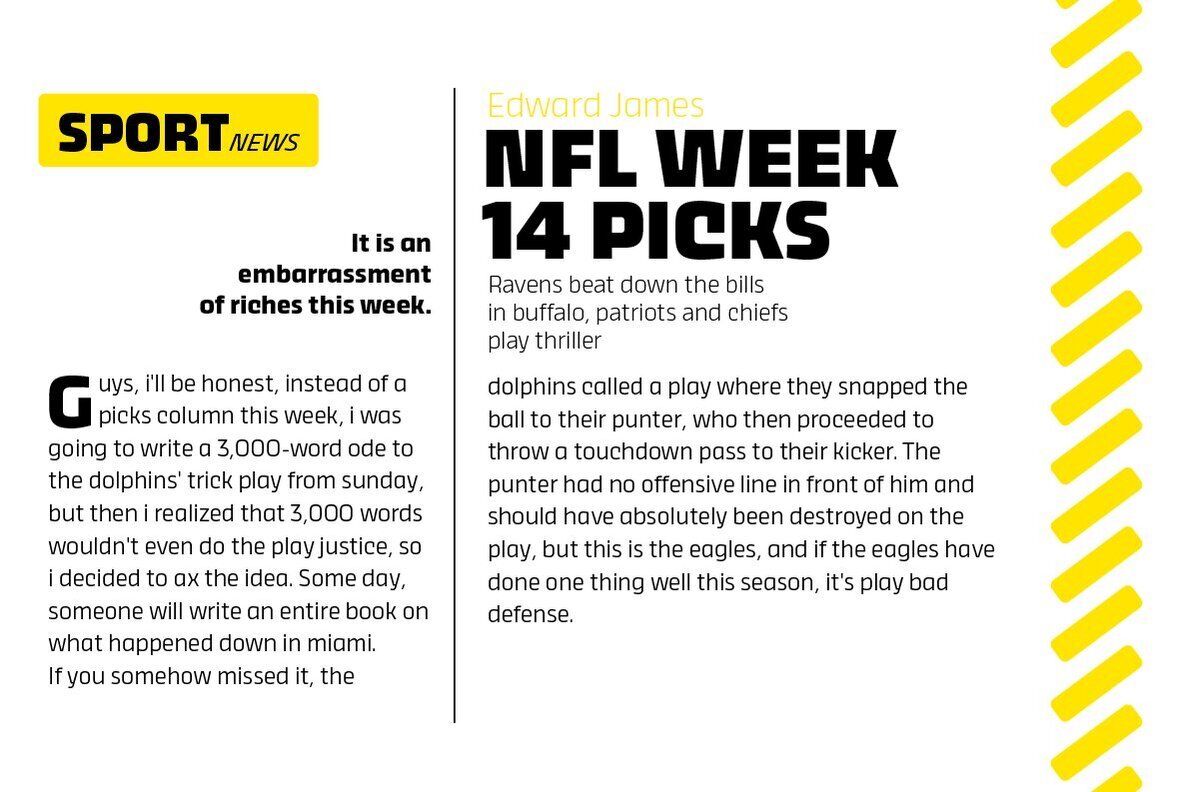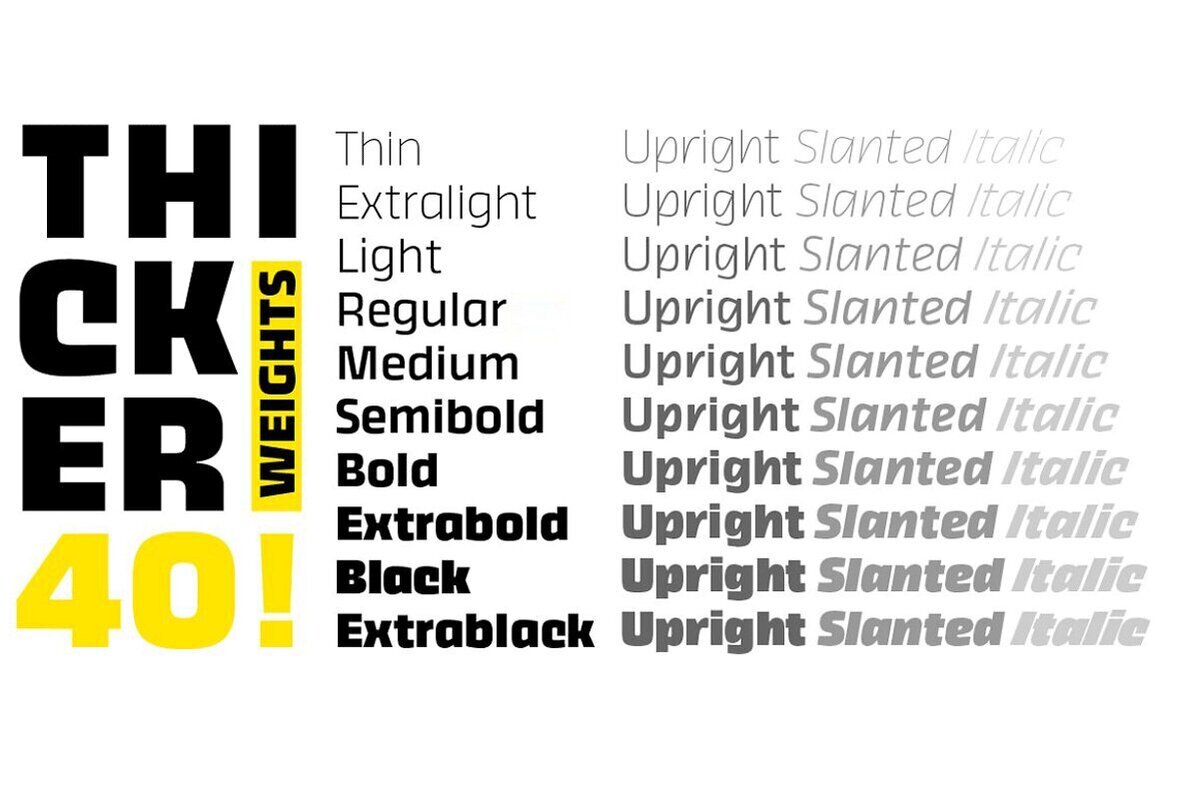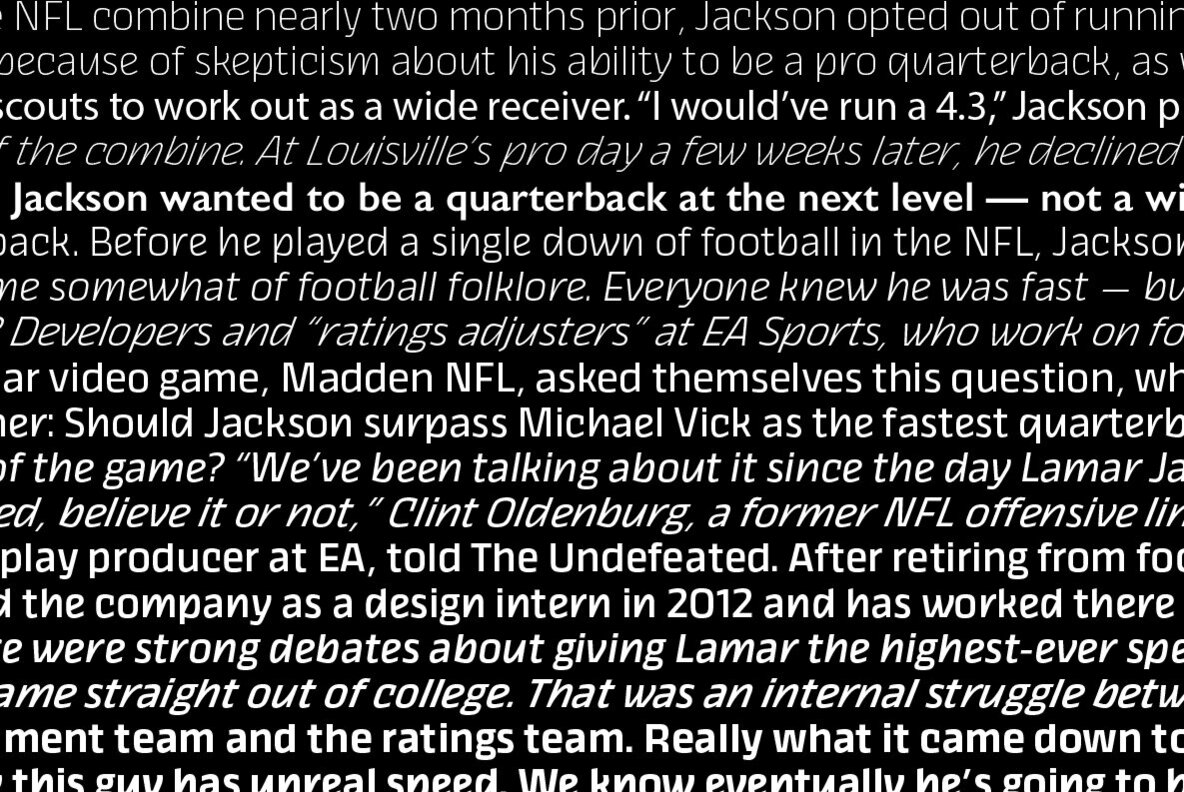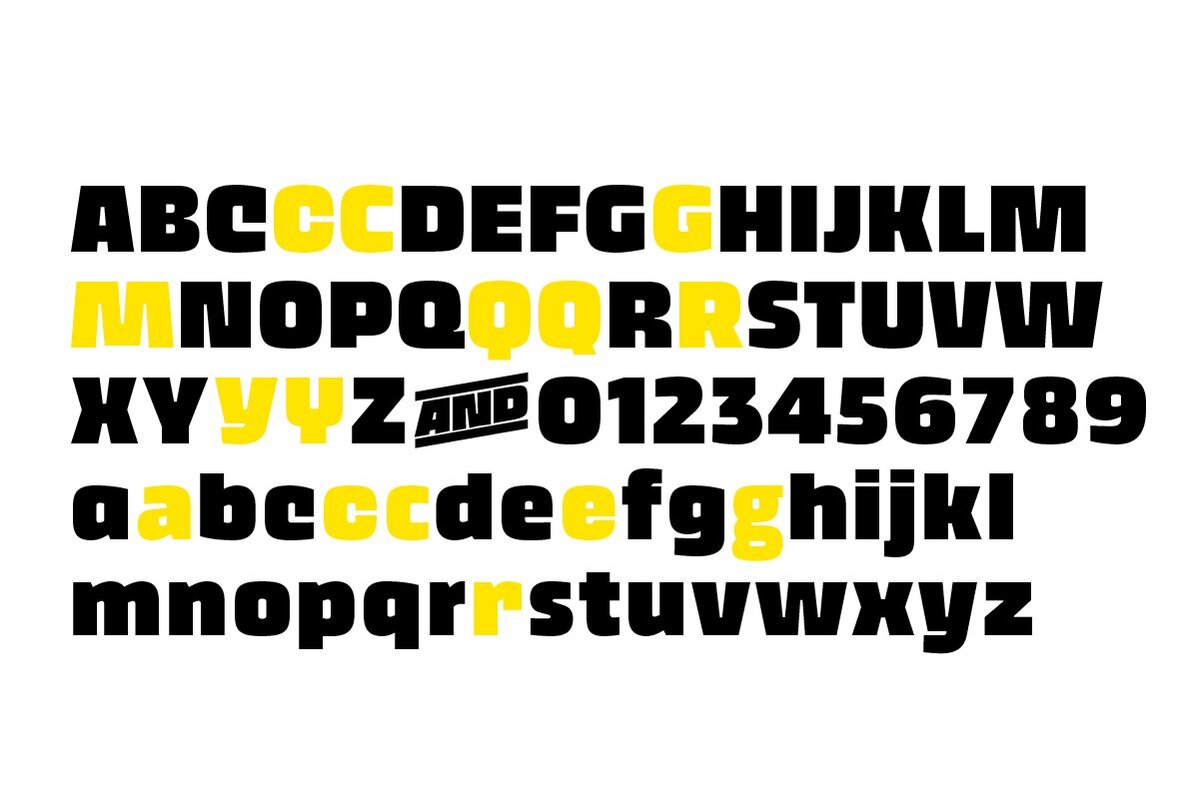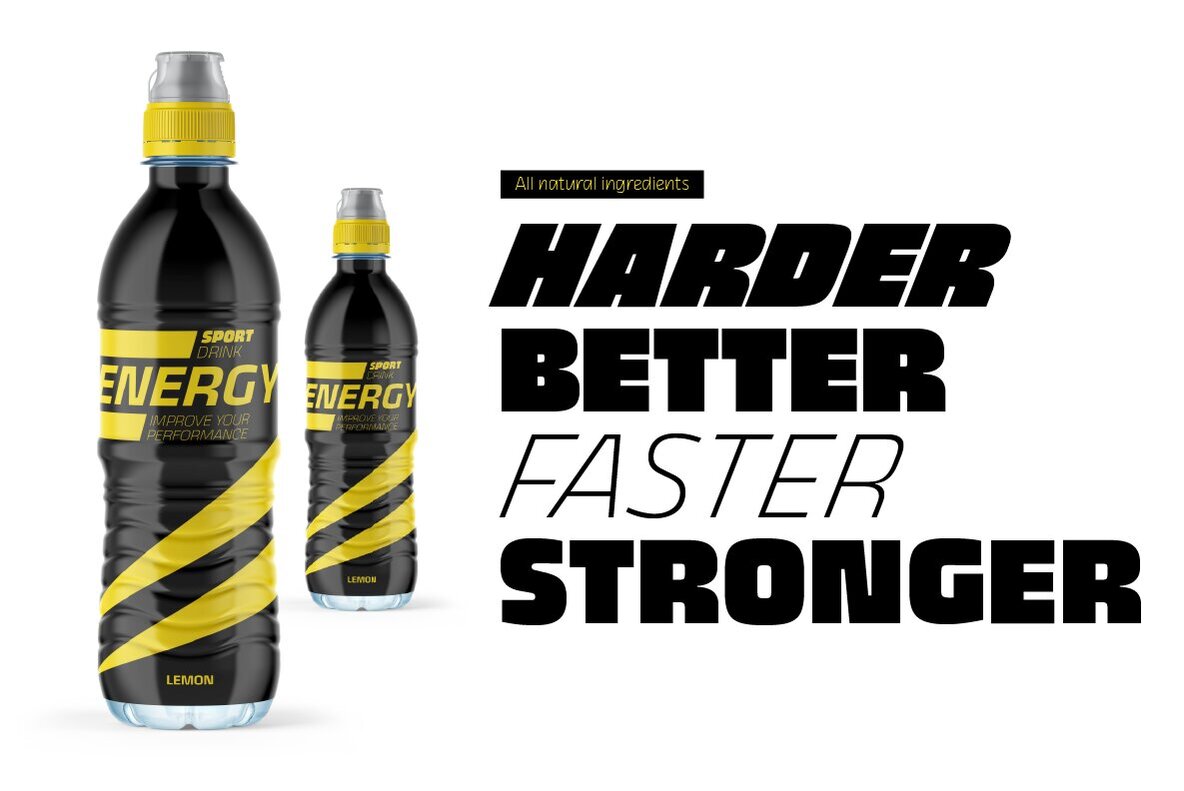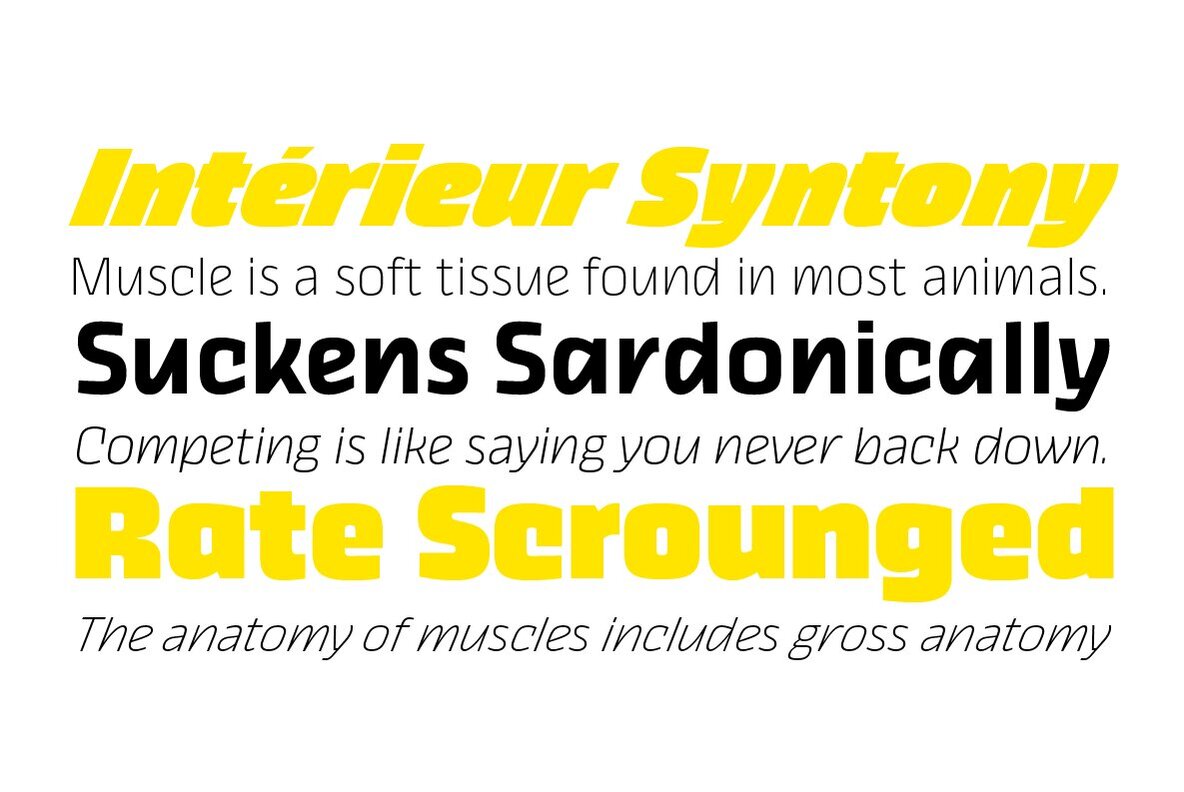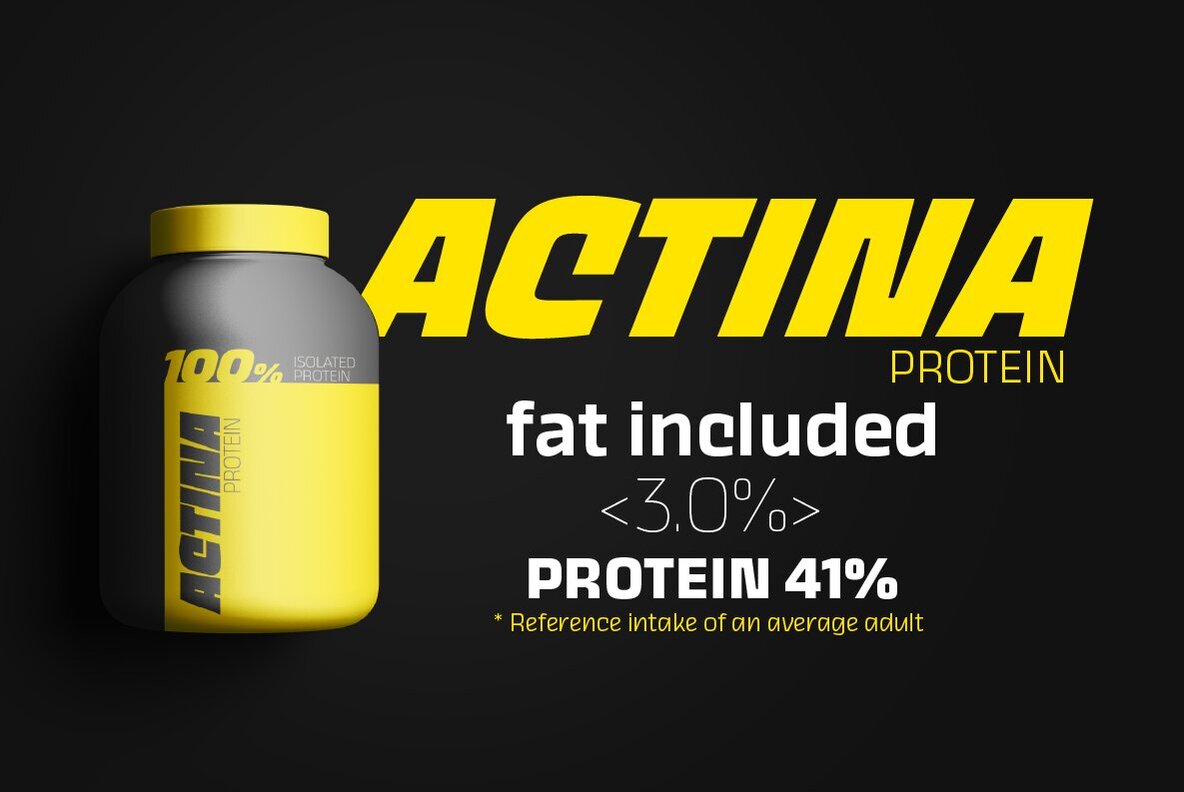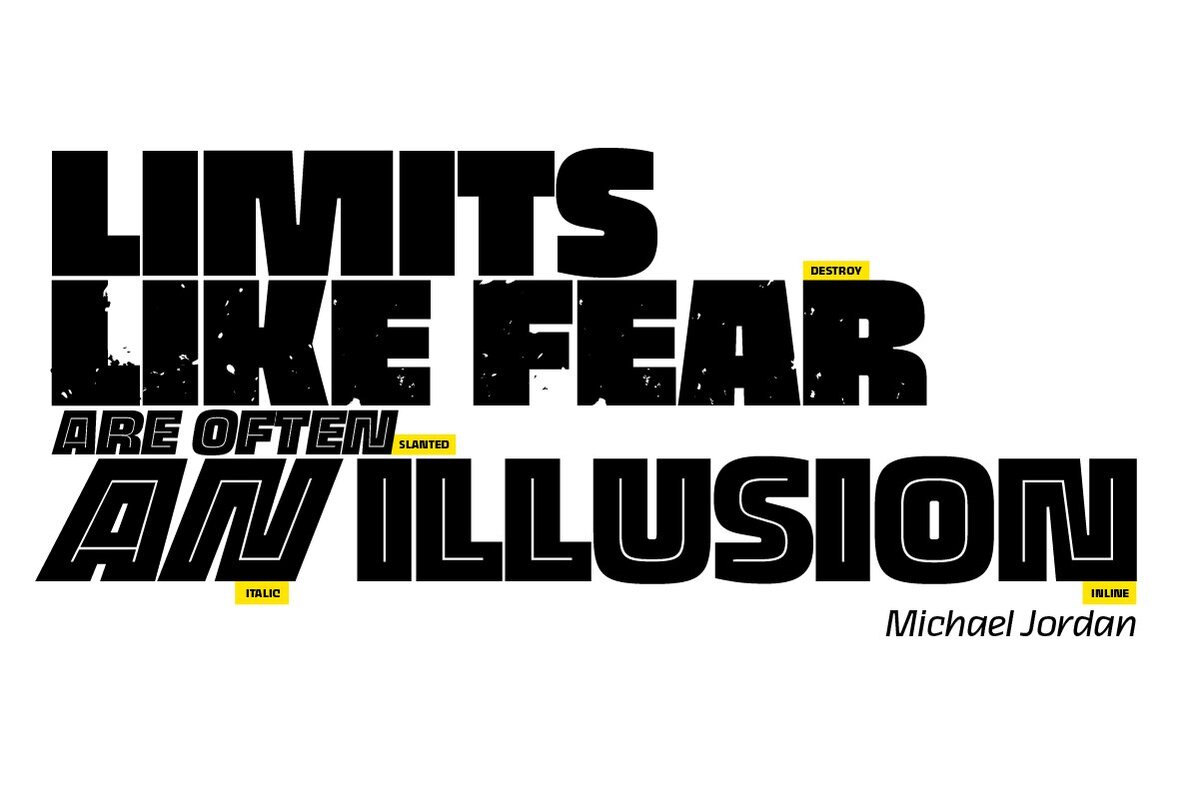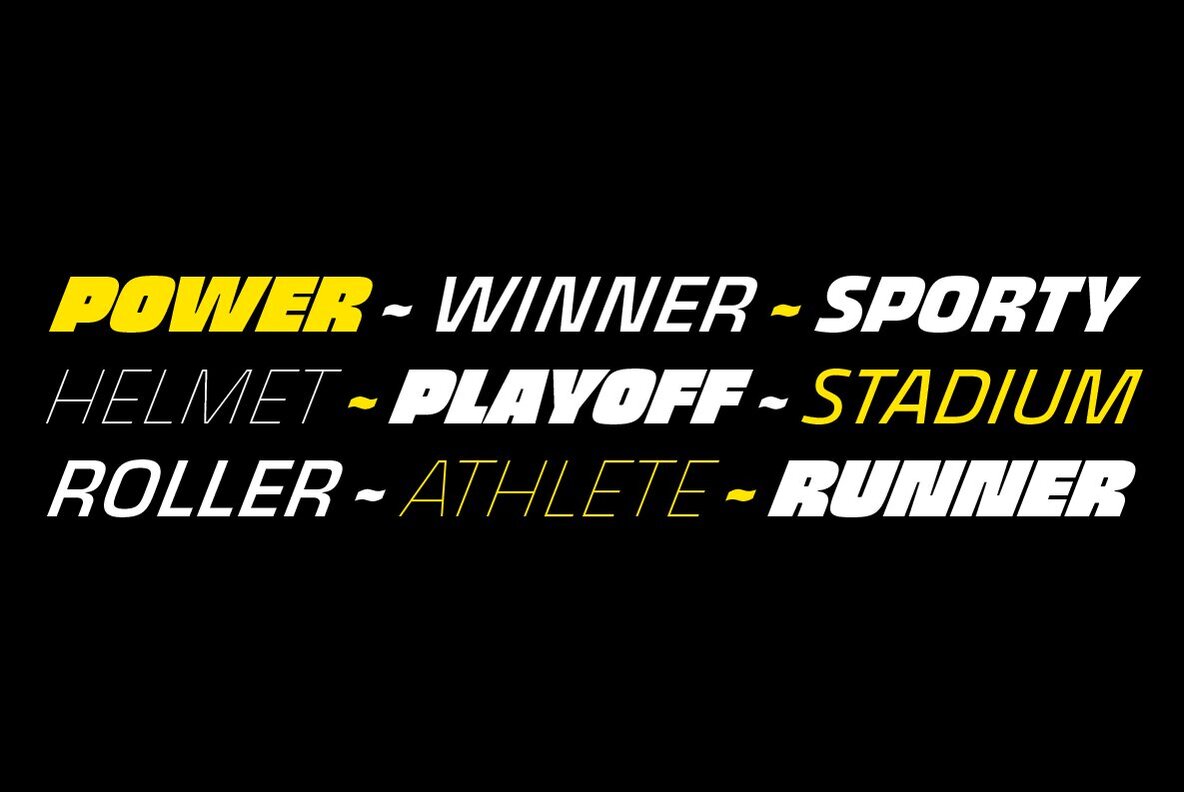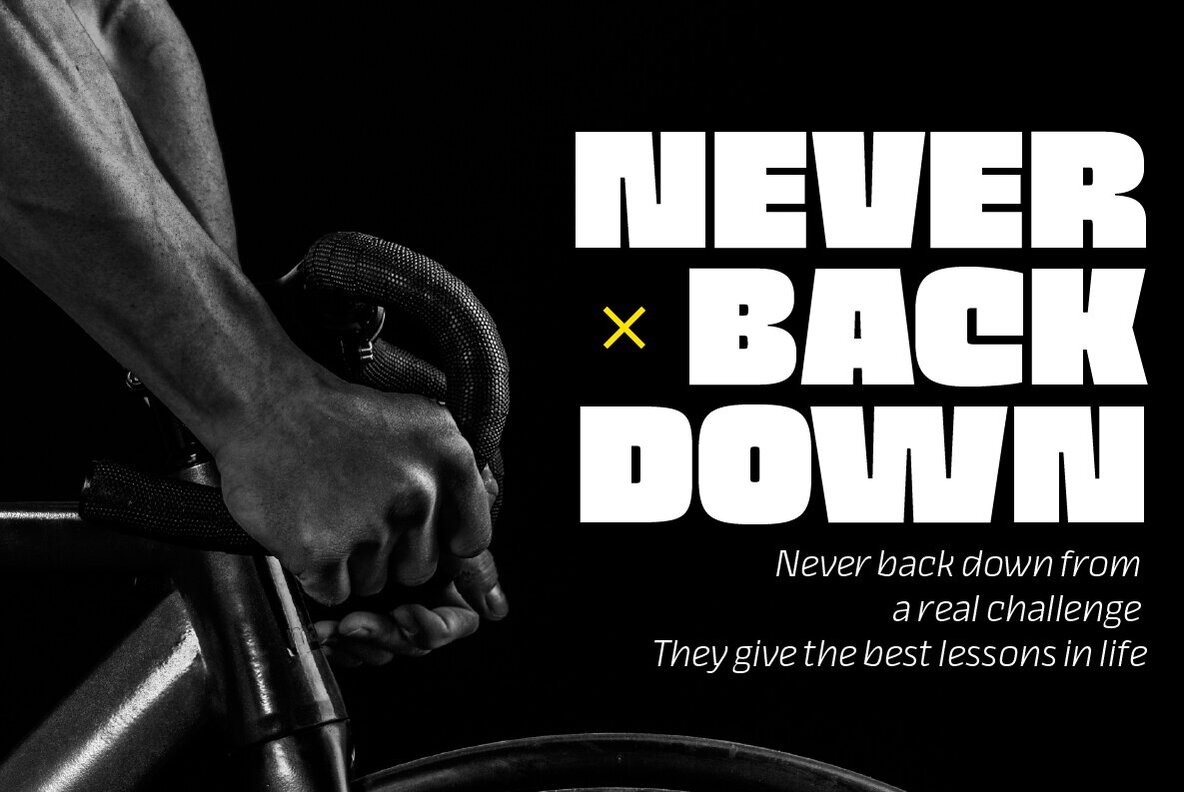
Thicker Font
Thicker is a type-family designed for Zetafonts by Francesco Canovaro with Andrea Tartarelli. A geometric sans typeface on steroids, it was first designed in the muscular extrablack weight with the aesthetics of high-power dynamic typefaces used in sports communication, and then developed in the lighter weights where the shapes show some vintage-inspired proportions and the slightly squared look that nods to Novarese famous Eurostile, eponymous with retro-futurism.